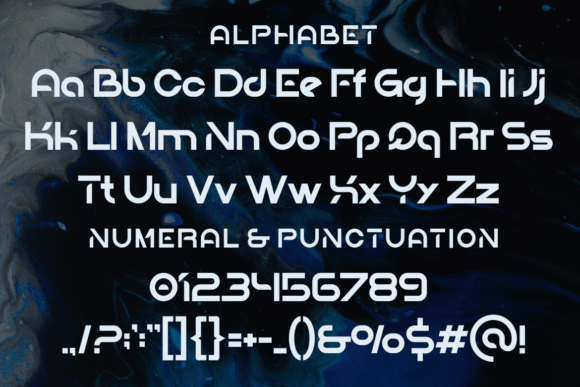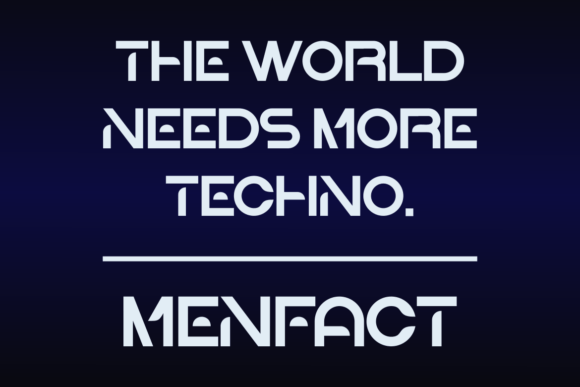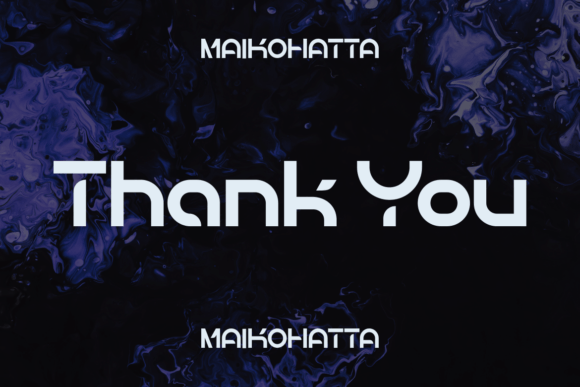
Introduction to Menfact Font
Menfact is a modern display font with a techno touch.
This modern font is suitable for any branding project like logo, t-shirt printing, esports, and many more Outstanding in a wide range of contexts.
Menfact Font offers exceptional quality and versatility, making it a valuable addition to your design toolkit. Whether you’re creating for personal projects or commercial use, Menfact Font delivers professional results.